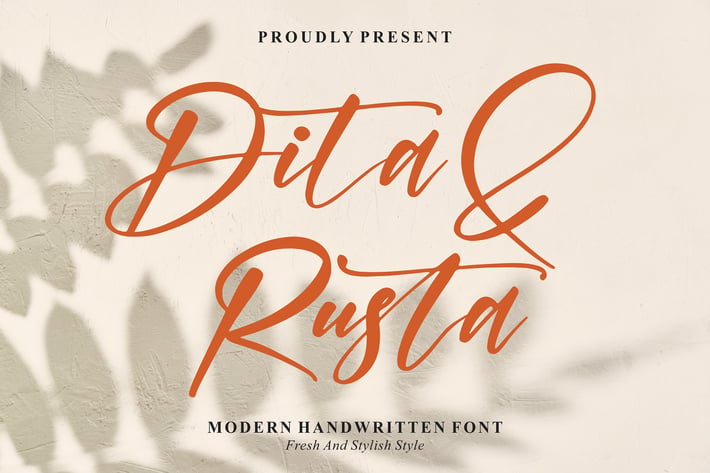
Dita Rusta Modern Handwritten Font
Dita Rusta is a modern handwritten script with a fresh, stylish vibe—think soft shadows, warm tones, and effortless curves. Its smooth strokes and natural rhythm make headings feel personal while keeping body text clean and readable. Perfect when you want an elegant, contemporary voice without losing that handcrafted charm.
+ Uppercase & lowercase letters
+ Numerals & punctuation
+ Stylistic alternates & natural ligatures
+ Smooth baseline with elegant swashes
+ Multilingual support
+ Optimized kerning & spacing
Perfect for:
+ Branding & logos
+ Social media posts & quotes
+ Invitations, wedding suites & stationery
+ Packaging, labels & product cards
+ Posters, flyers & promotional graphics
+ Blog headers & website hero text
Bring a fresh, stylish handwritten touch to every headline with Dita Rusta.